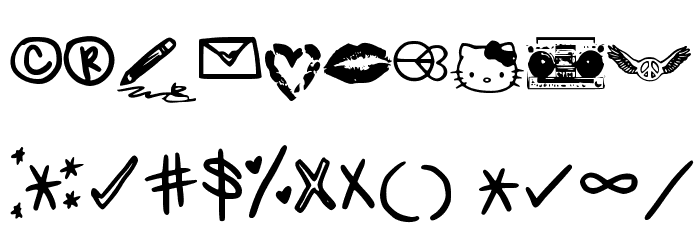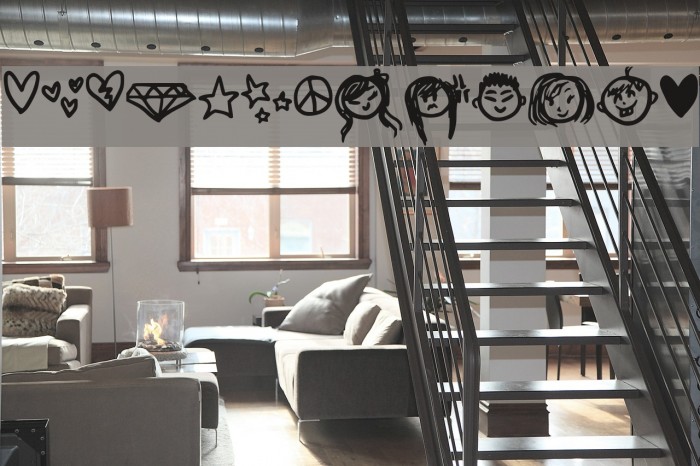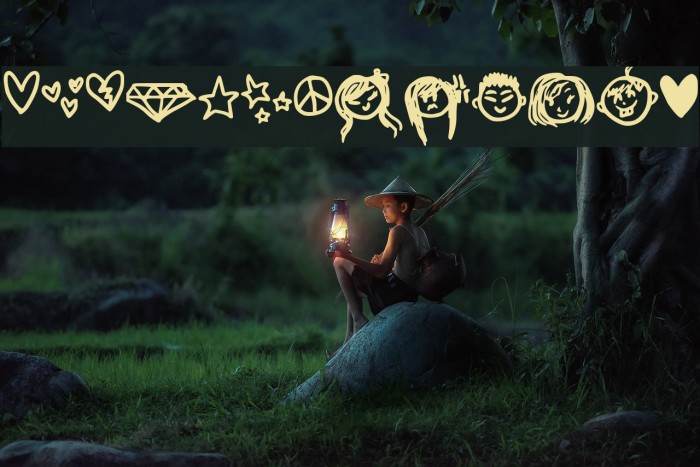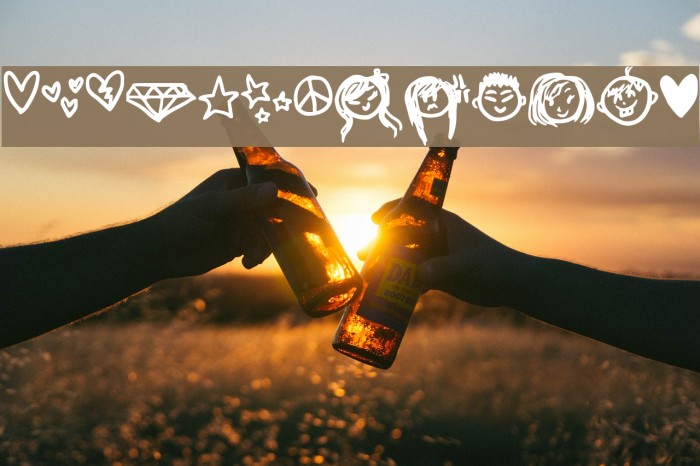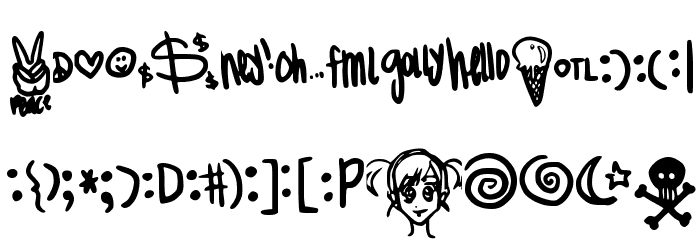
MeganBats Font
MeganBats Description
This font is a playful and whimsical collection of doodles and symbols, featuring a variety of hand-drawn elements. It includes hearts, stars, peace signs, and various expressive faces, each with unique and quirky expressions. The style is reminiscent of casual sketches, with a youthful and energetic vibe. The characters are bold and have a slightly irregular, hand-crafted appearance, adding to the charm and individuality of the design. This font is perfect for projects that require a fun and informal touch, such as greeting cards, children's books, or playful branding materials. The variety of symbols and icons included provides a versatile range of options for creative expression.
A playful, hand-drawn font with whimsical doodles and symbols from Uncategorized fonts.
- Proposed Projects: Ideal for greeting cards, children's books, playful branding, and creative projects.
- Overall Style: Playful, Whimsical
- Use Case: Decorative elements, Creative projects